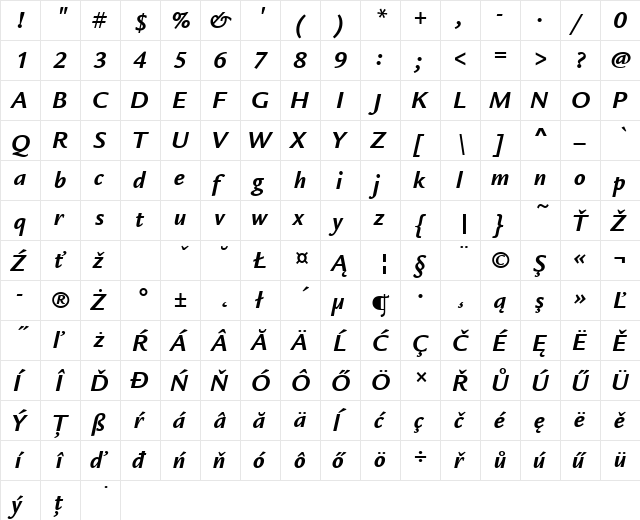
LegacySanItcTEE Bold Italic Font Preview
Design Context for LegacySanItcTEE Typeface
LegacySanItcTEE takes a measured approach to typography — its balanced proportions and neutral character make it a reliable workhorse for both digital and print work. The slanted form adds forward momentum and visual energy. The heavy weight commands attention and anchors typographic hierarchies.